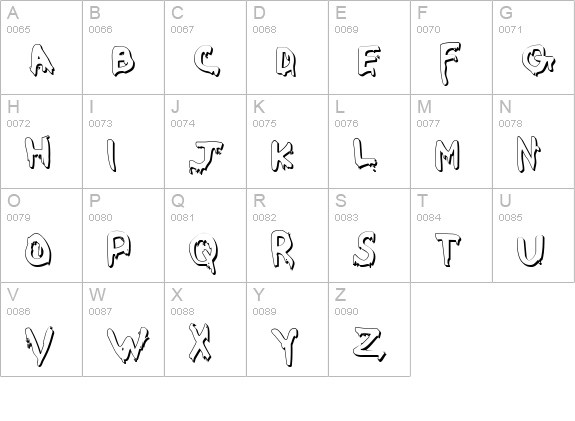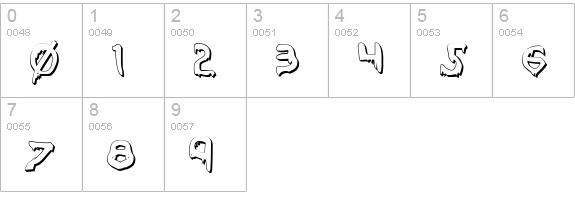
The Were-Beast Shadow font is a captivating and mysterious typeface that brings a touch of wildness and intrigue to your design projects. With its unique blend of sharp edges and haunting shadows, this font exudes a sense of primal power and dark beauty. Perfect for adding a touch of the unknown to your posters, book covers, and invitations. And the best part? Were-Beast Shadow font is available for free download at FontsMarket.com. Embrace the untamed spirit of the Were-Beast Shadow font and unleash your creativity today!